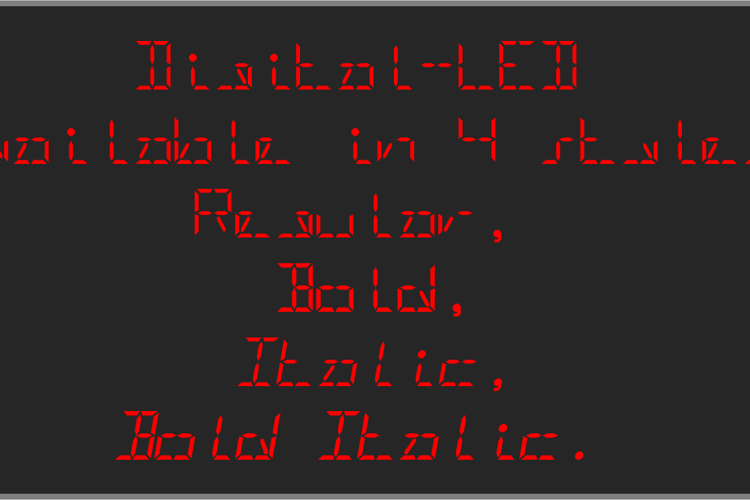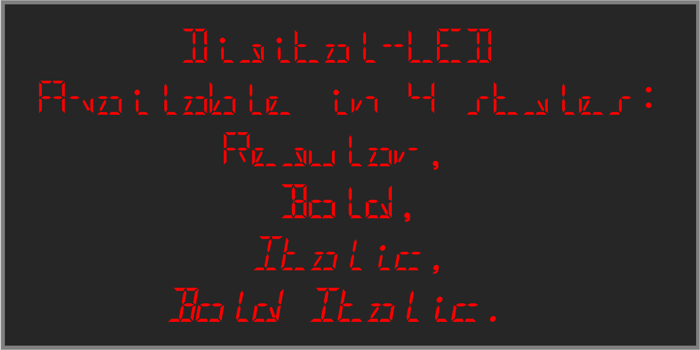
Digital-LED-Demo Font
About Digital-LED-Demo Font
I wanted to create a custom LED font, so I did, making sure to check for errors...
It is useful for many things. (Electronically and in Real Life) (e.g. Documents, coding, signage, games, LED signs, calculators, etc.)
is this my alarm clock or is that my digital clock font after all